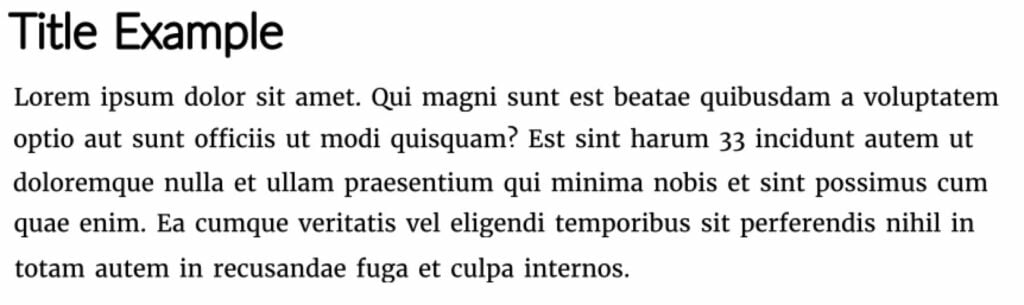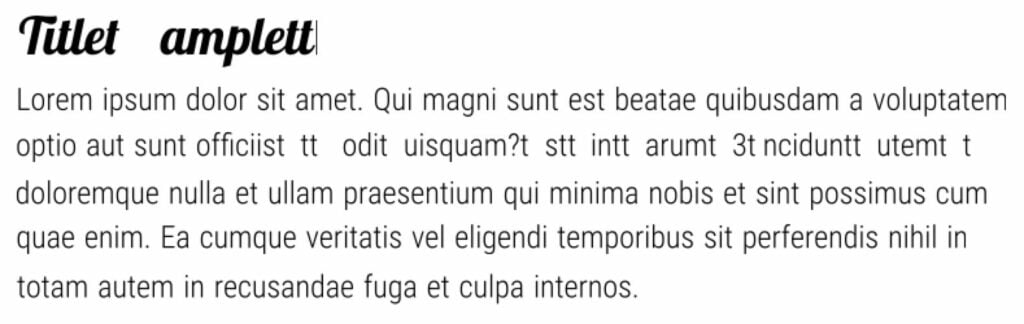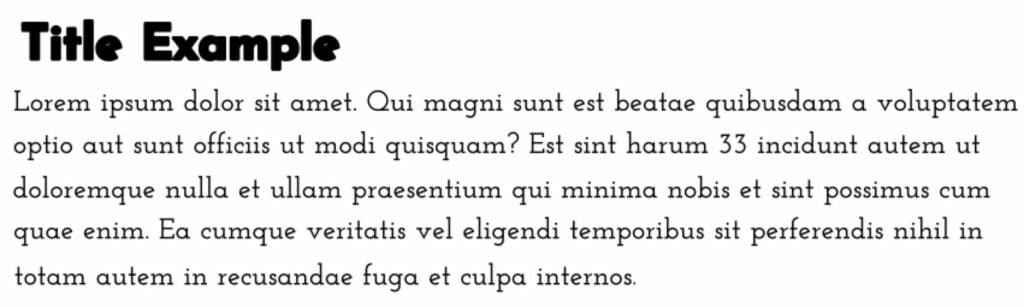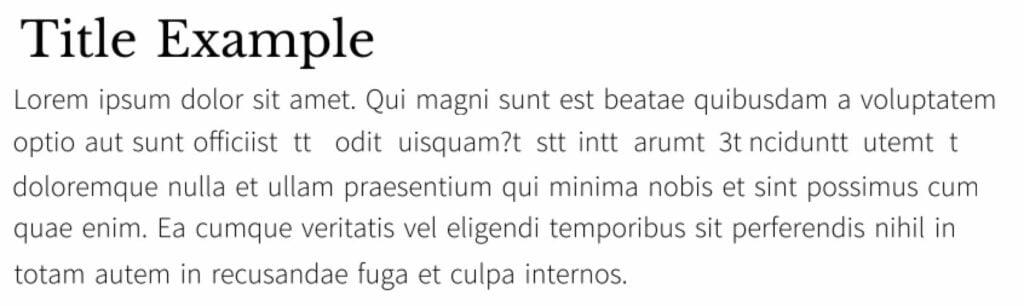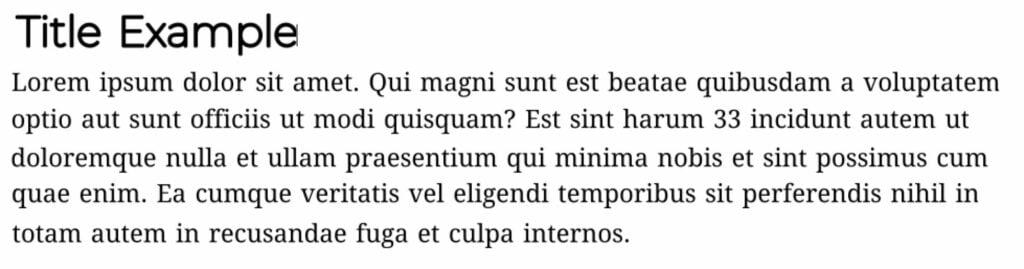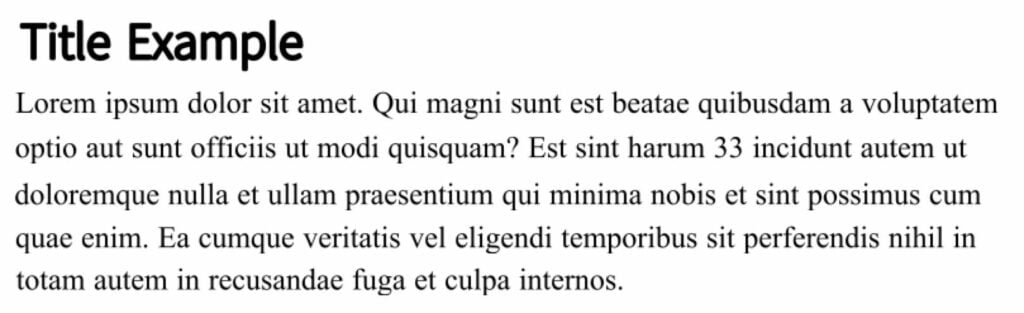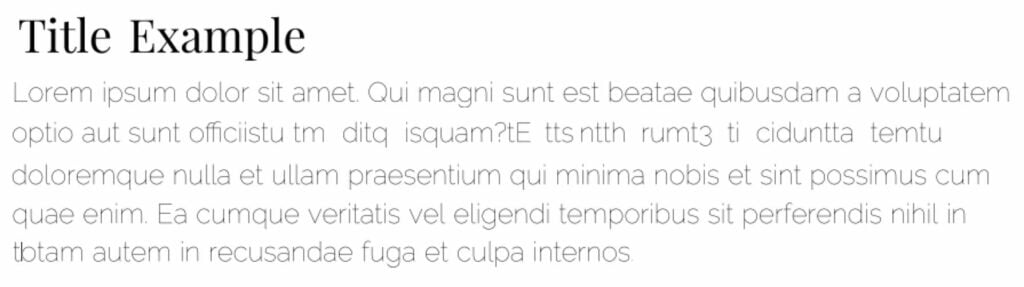
Best Font Combinations for Websites [Tips, Rules, Examples]
Fonts and web fonts pairings are essential elements of every web design. Learn how to create the best font combinations for websites to deliver the best user experience to the audience.
Web designers should make color palettes, navigation elements, web themes, and the best web fonts pairings. You need a good sense of your brand’s style to identify the best font pairings that can convey a similar vibe.
What are web fonts combinations?
Web font pairings are combinations of two different fonts that compliment each other, providing better readability of your website’s content. These can be either cohesive or contrasting font pairings, making certain elements of your website stand out.
Web font pairings importance
We use fonts in headings, sub-headings, text body, etc., to keep visitors engaged with the reading and establish a clear and easy-to-follow hierarchy on websites. However, things can get tricky when you start playing around with different fonts and their combinations without knowing which should be the best font combinations for your website.
Unless you get a clear understanding of the best font pairings, you can make such mistakes as:
- Using boring fonts makes lengthy posts hard to read.
- It’s not the right choice to use retro fonts on a business’s website promoting innovative products or services.
- Using super-simple fonts can contradict the first impression of users learning about your business.
You can avoid these and other common font pairing mistakes if you consider the tips and rules on website font combinations listed below.
Best web font pairing tips
- If you work on a web page design with over 600 words, it would be better to use serif fonts in the body text because it lets your readers easily distinguish between similar-looking characters. The legibility of serif fonts is one of the major reasons why they are heavily preferred in literature and newspapers. However, if you find sans serifs with distinct letters, you may experiment with them.
- Gone are those days when sans serifs were considered a better choice than serifs for online texts because of their high readability. Over the past years, the quality of screen resolutions has significantly increased, making texts written in both font styles equally readable. Rather than focusing on the choice of sans serifs and serifs for your online content, you should pay more attention to the right choice of font size and setting the right spacing between the lines, as that does have a direct impact on your content’s readability.
- Font pairing isn’t about how you feel about your website’s typography. It is about how comfortable your website visitors are while reading your copy.
- The best font combination for your website is the one that aligns with your brand. The choice of fonts and combinations can tell your visitors a lot. Serifs are the common choice for creative and fun projects, while sans serifs should be a better fit for more traditional and serious business websites.
Rules for best font combinations for websites
Now, let’s consider the most effective rules for choosing the best website font combinations.
- Don’t use more than three fonts on your website. You will need to choose a font that looks great for a bigger size. It will be used in the header text. Both should be readable and match your brand style. You may choose the third font if you feel you need it.
- The best font combination for your website is the well-balanced one. The best way to achieve this is by pairing serifs with sans serifs.
- Create font pairings within font superfamilies. It’s a very common practice. Such fonts perfectly blend, and they should be easy to distinguish one from another.
- Use different fonts for different roles to establish a hierarchy on your web page. You may want to use a tall sans serif font to focus users’ attention on the header and use spacious and rounded serifs to let your readers easily and quickly scan your message.
Examples of the best font combinations
Now it’s time to consider some of the most vivid and effective examples of web font pairings. Use these for your inspiration, or feel free to pick the same font combinations for your website.
Abril Fatface & Lato
Abril Fatface font was designed for advertising headlines from the U.K. and France in the 1800s. Lato font was mainly designed to be used for corporate and business needs. The combination of the two typefaces should make your message look stunning on marketing and digital agency websites.
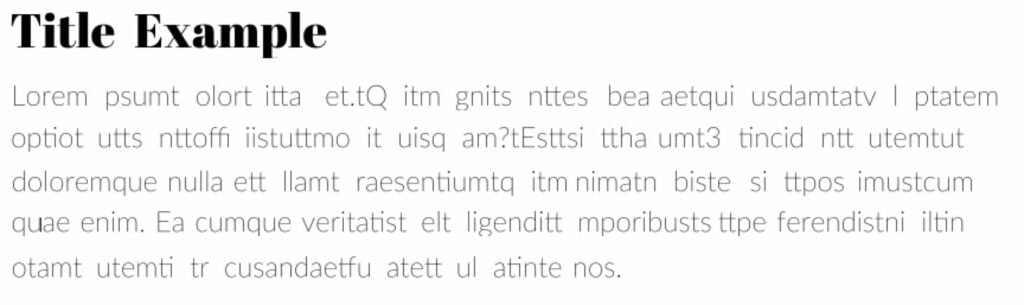
Lato & Roboto
Following the example above, where the Lato font is used in the body text, you can also use Lato in headlines and pair it with Roboto, which should be a perfect fit for large corporate websites in pharma, biotech, or healthcare.
Lato & Merriweather
Typography has huge importance for website perception and its readability. The right choice of the best font combinations can help you better convey your message to the audience and keep users more interested in your marketing message. Consider following the tips and rules of the best font combinations for websites and pick the best web fonts pair for your online project.